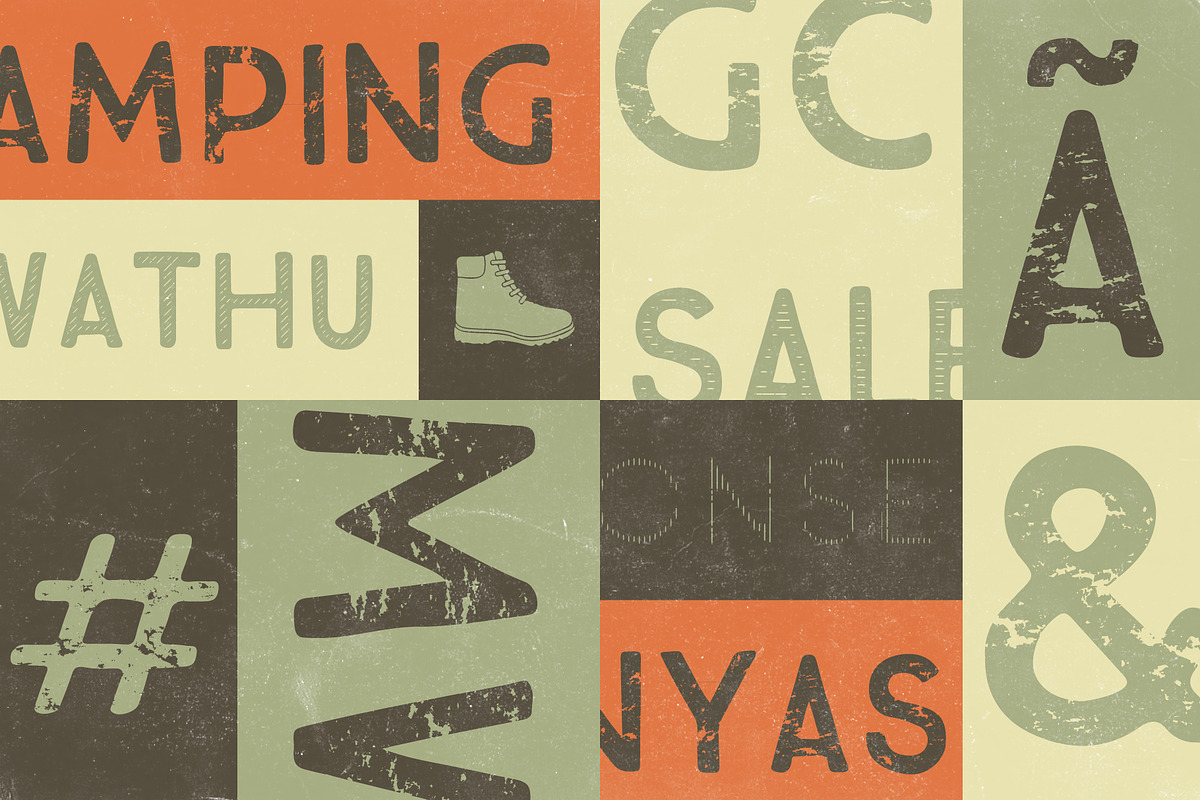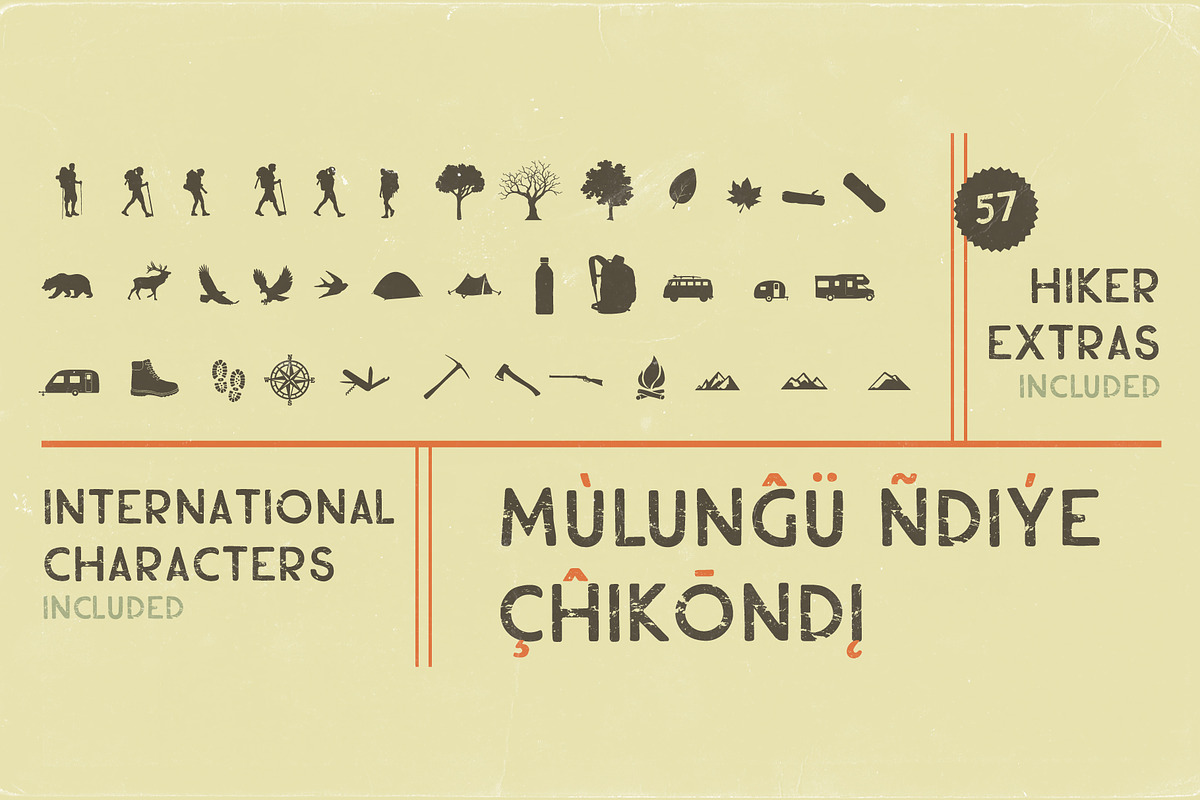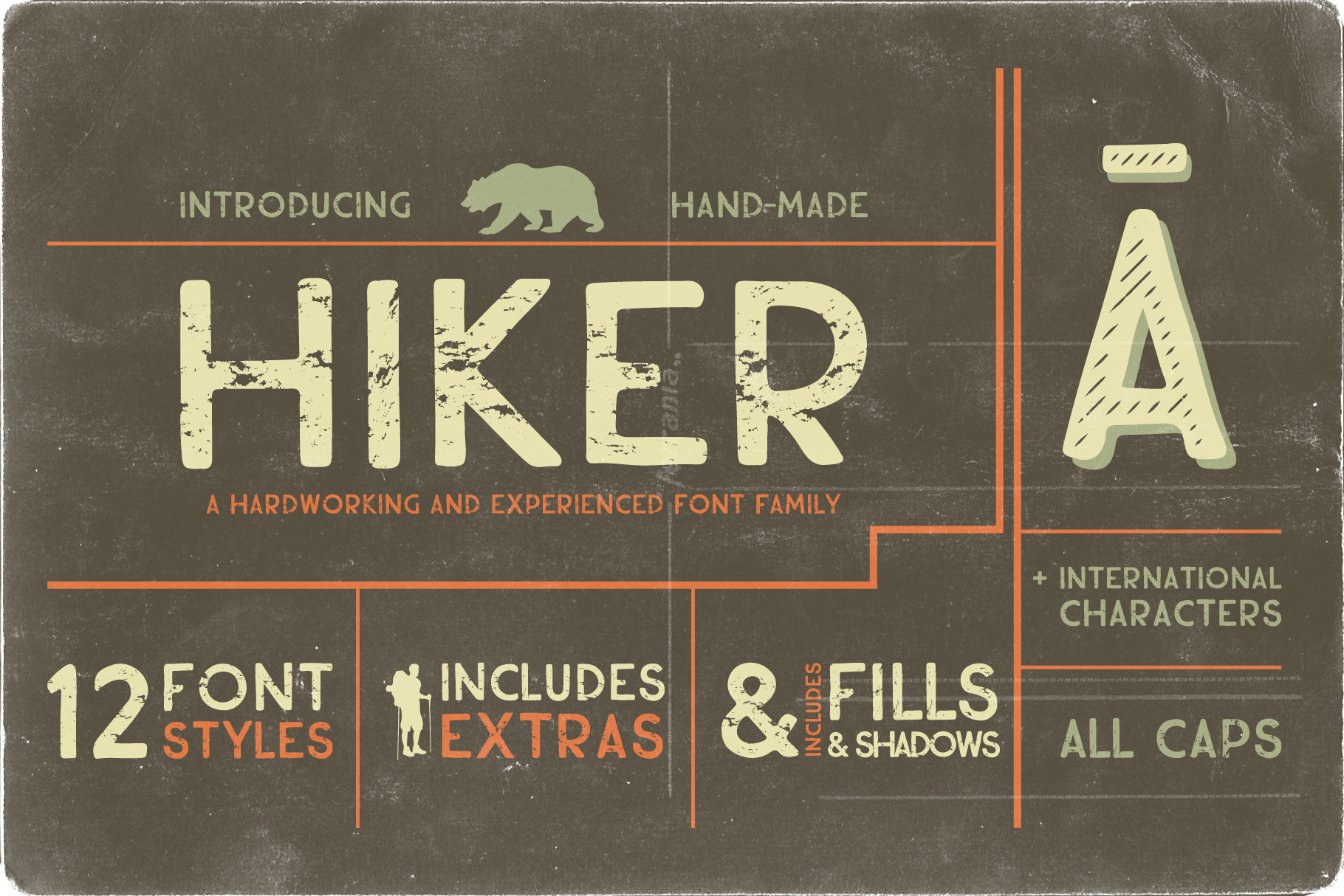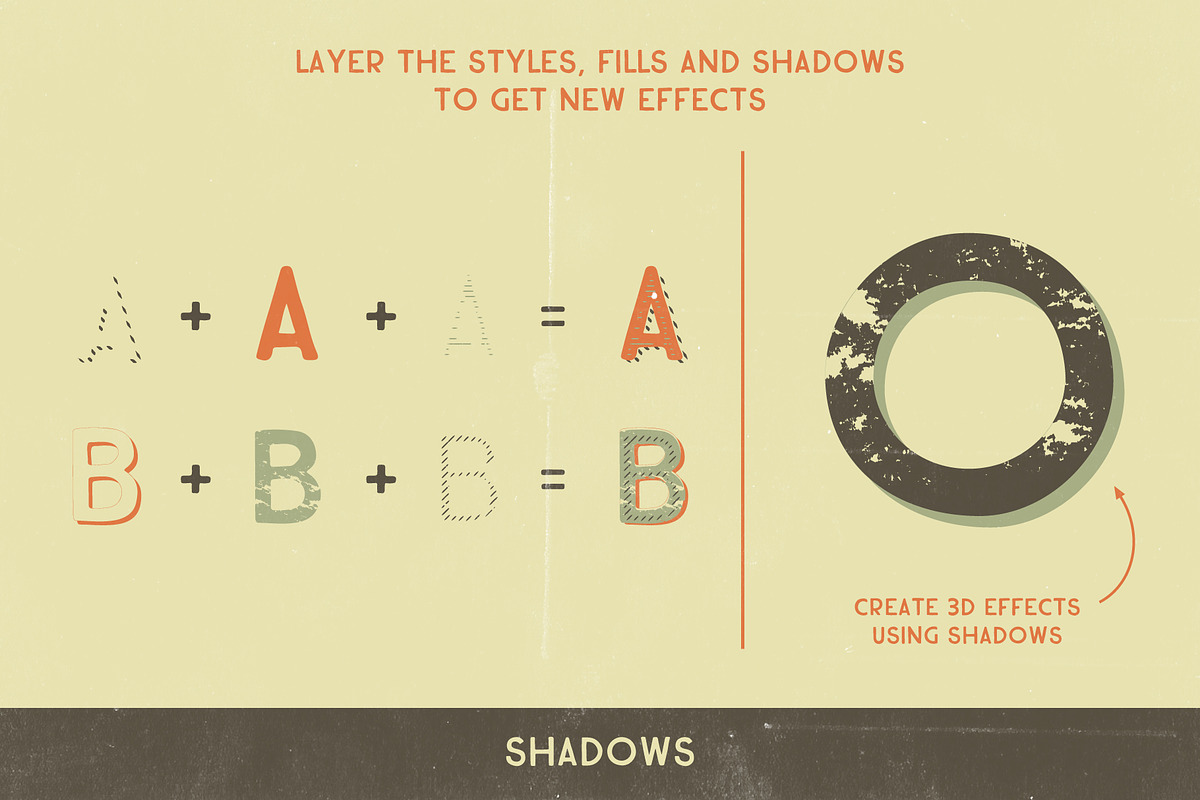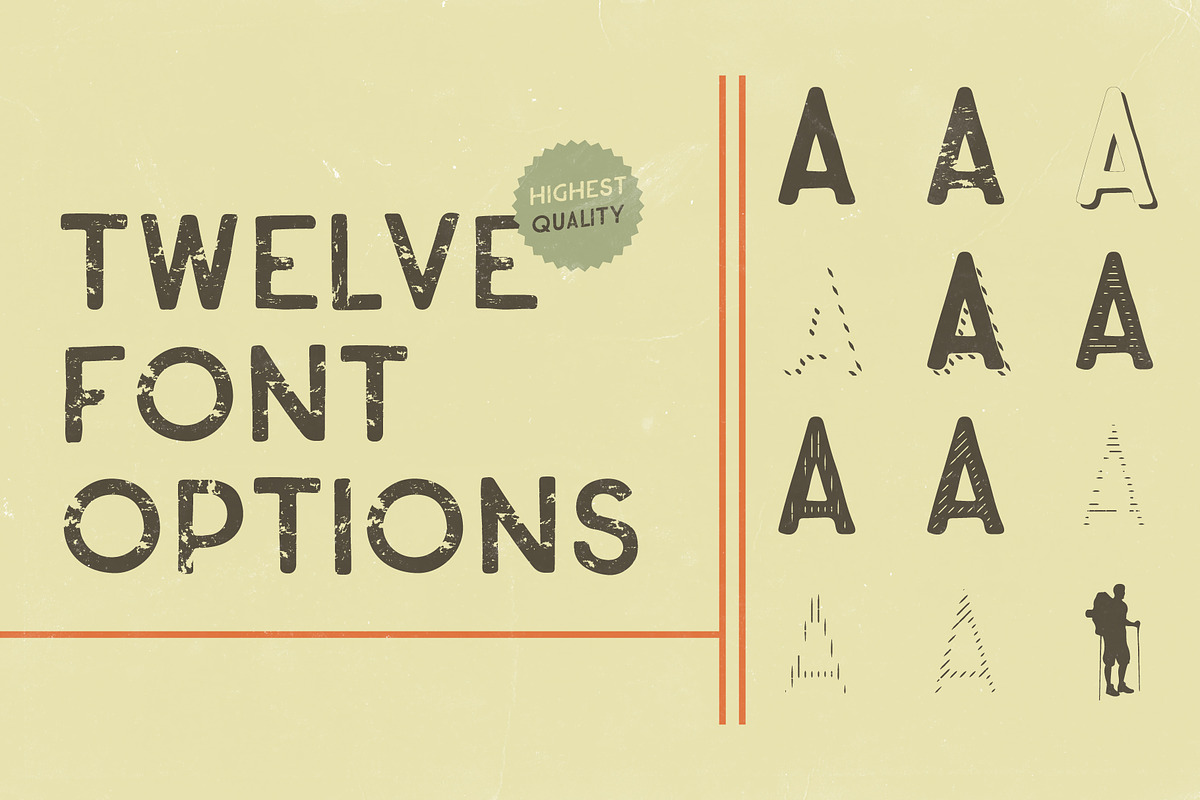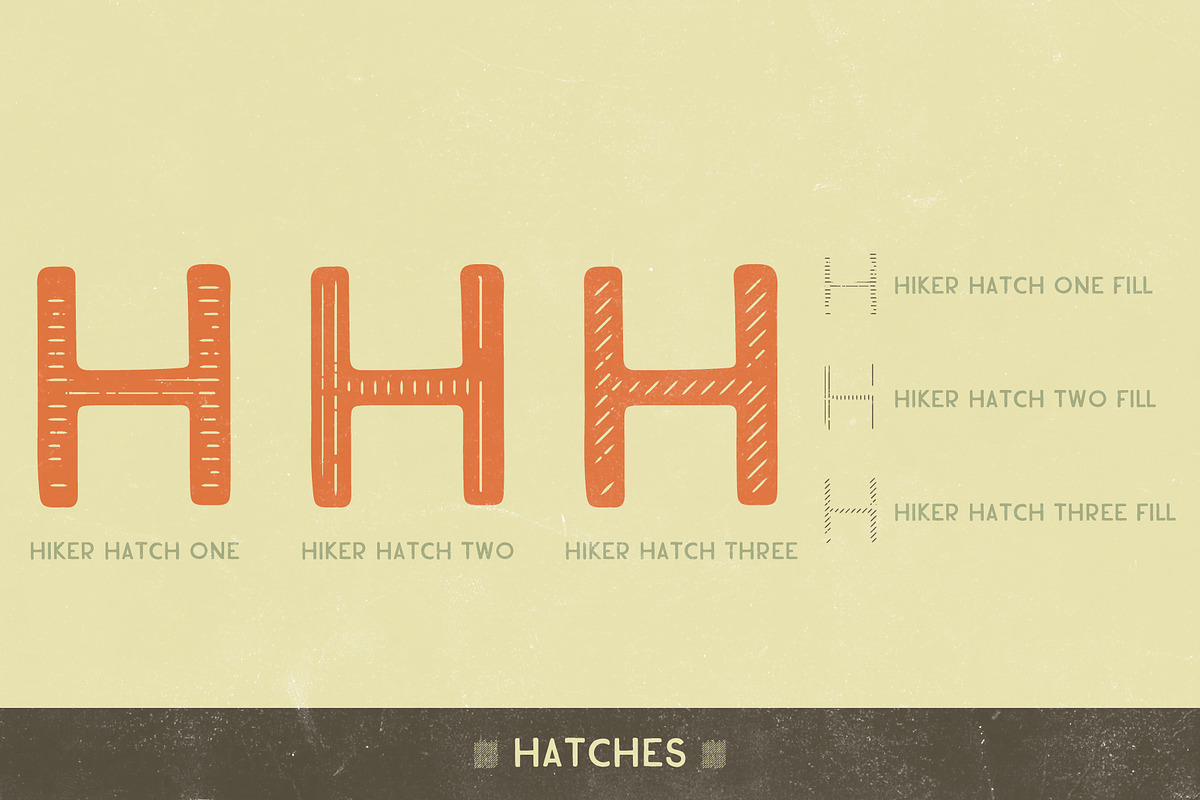
Hiker Premium Font Family
Hiker is a premium, high-resolution font family with handcrafted charm. This handmade font family has plenty to offer with 12 styles including clean, hatches, distressed, fills, shadows and extras. Extras include symbols, animals, mountains, hikers, and tools (character map included). Where Hiker comes into its own is when you begin layering the fonts to create new effects.
Another great feature of Hiker is its wide range of international characters. Hiker has many uses in the design world including signage, branding, invites and cards, t-shirt design, the music industry, restaurant and grocery signage, coffee shops, and much more.